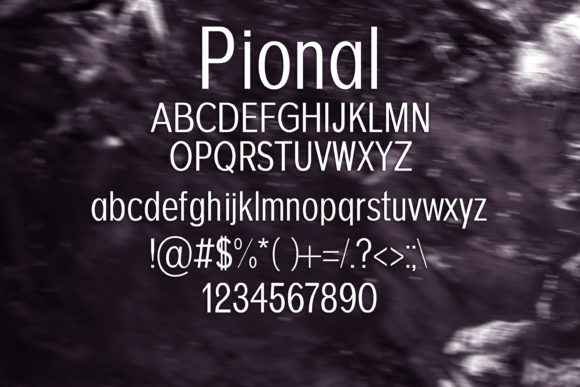
Introduction to Pional Font
As you sit at your desk, staring blankly at a blank canvas, the wheels start turning – what’s the perfect font to bring your creative project to life? You’ve got a vision, a concept, and a dash of inspiration, but the right font can make all the difference. That’s where Pional Font comes in – a cool and fun sans serif font that’s sure to elevate your design game.
With its modern charm and sleek lines, Pional Font is a valuable resource for designers looking to add a touch of sophistication to their work. Whether you’re working on a free download or a high-quality design project, this font is sure to impress. Plus, with its transparent background, you can easily layer it over your designs without any distractions.
Pional Font
- Features a transparent background, making it perfect for overlaying on images
- Includes multiple font styles with varying weights and sizes
- Supports a wide range of languages, including English, Spanish, and French
- Designed with a modern aesthetic, suitable for a variety of creative projects
Honest Review: Pional Font
As a designer, I’m always on the lookout for high-quality design resources to elevate my creative projects. I recently had the chance to work with the Pional Font, and I’m excited to share my honest review with you.
What works well: ✨ The Pional Font is a versatile, modern sans-serif font that’s perfect for a wide range of design applications. Its clean lines and geometric shapes make it easy to read, even at small sizes. I also appreciate that it comes with a transparent background, which is a must-have for designers who want to create seamless designs.
What doesn’t work so well: ⚠️ One of the limitations of the Pional Font is its limited character set. While it’s perfect for body text, it may not be suitable for titles or headlines that require more emphasis. Additionally, the font can look a bit generic if not used carefully.
Overall impression: The Pional Font is a solid addition to any designer’s toolkit. It’s free to download, making it an excellent choice for designers on a budget. While it may have some limitations, its high quality and versatility make it a great resource for creative projects.
- Perfect for body text
- Limited character set
Pional Font
Tips for Getting the Most Out of Pional Font
When using Pional Font, make sure to use it with a transparent background to get the best results. You can also experiment with different font sizes, styles, and colors to add visual interest to your design.
Pional Font is commonly used in creative projects such as logos, brochures, and business cards. It’s also a popular choice for designing typography-based art and graphics.